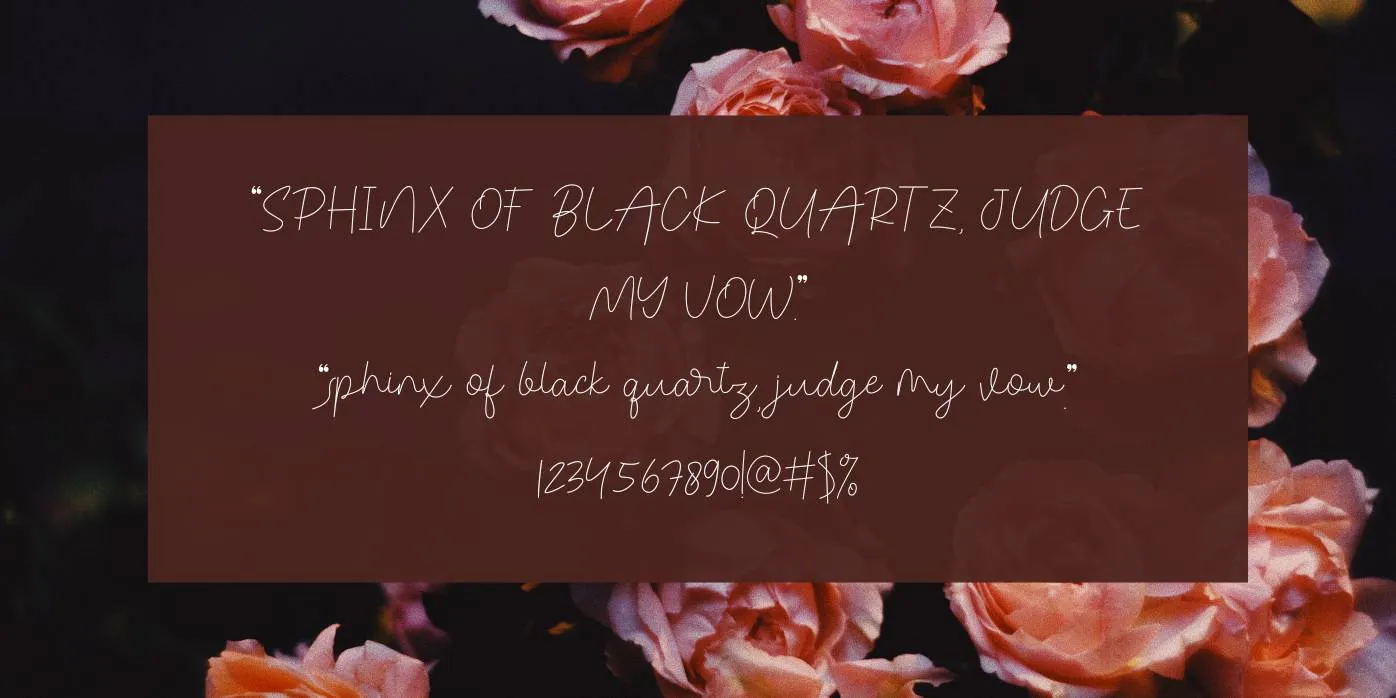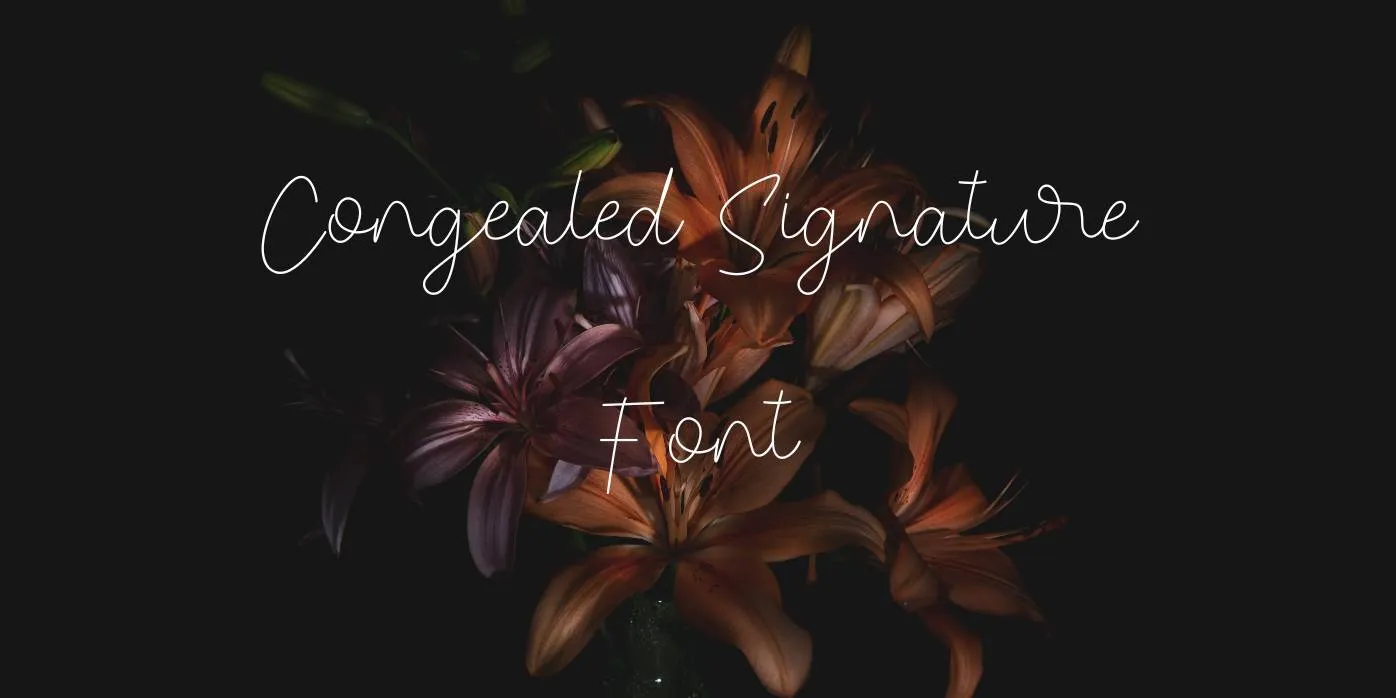
Congealed Signature Font
Today, we are going to introduce a unique handwritten type of font. Congealed Signature Font is a handwritten type of font and Rometheme Studio is the creator of this texture. This amazing and unique handwritten typeface has 235 glyphs. The characters of this texture are stylish with low readability.